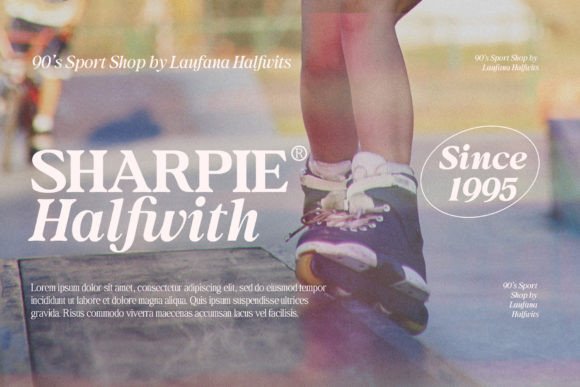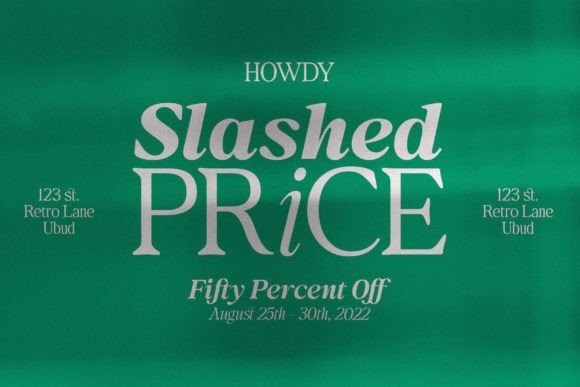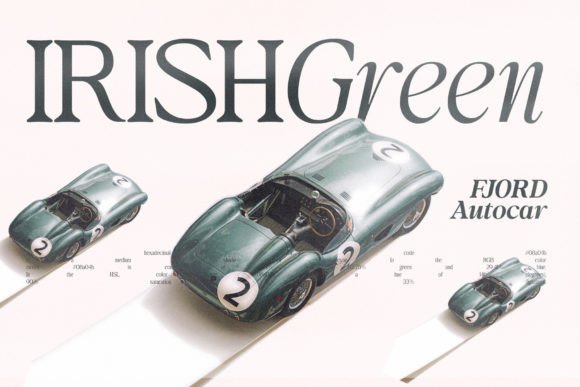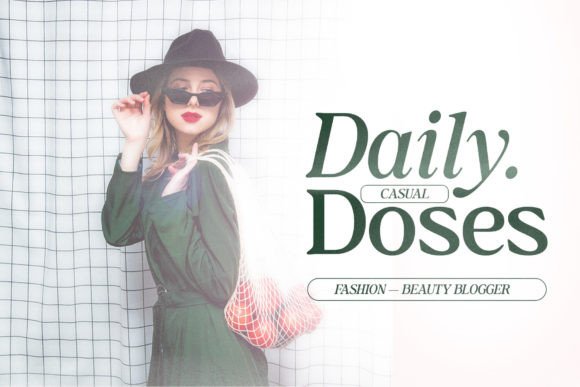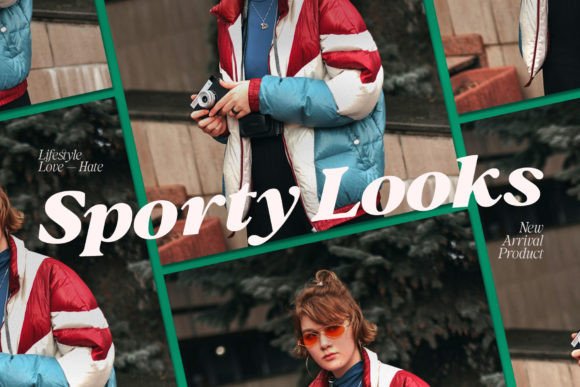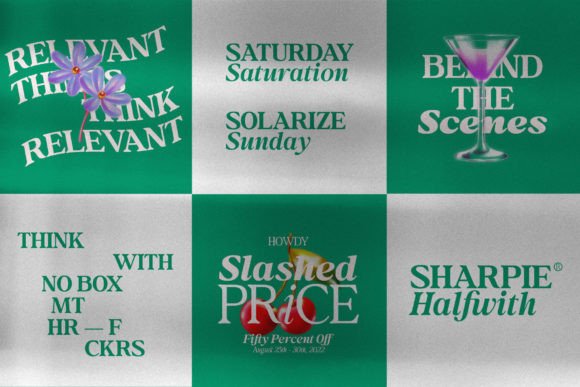
Unveiling the Timeless Charm of Behind the Nineties Font
In the realm of typography, certain fonts manage to capture the essence of an era, transporting us back to a time of nostalgia and elegance. Behind the Nineties font is one such typeface that has been making waves in the design community. Dubbed as a classy and elegant serif font, Behind the Nineties is not just a stylish addition to your typography arsenal but a tool to elevate each of your creations to new heights of sophistication.
The Essence of Behind the Nineties Font
Behind the Nineties is more than just a font; it’s a statement. Its classy and elegant serif design harks back to the refined typography of the past, yet its trendy and stylish elements ensure it remains relevant in today’s fast-paced digital landscape. This unique blend of vintage charm and modern flair makes it an indispensable asset for designers and crafters looking to infuse their projects with a touch of nostalgia and class.
Key Features of Behind the Nineties Font
- Classy and Elegant Serif Design: The font boasts a sophisticated serif design that lends an air of elegance to any project.
- Trendy and Stylish: Despite its vintage roots, Behind the Nineties remains trendy and stylish, perfect for designers looking for a modern twist on classic typography.
- Versatility: From branding and advertising to packaging and digital media, this font’s versatility knows no bounds.
- Easy to Read: The clear and readable design of Behind the Nineties ensures that your message is conveyed effectively, making it ideal for both headings and body text.
Who Can Benefit from Behind the Nineties Font?
Behind the Nineties font is a versatile tool that can benefit a wide range of professionals and enthusiasts. Graphic designers can use it to create stunning branding materials, while crafters can incorporate it into their DIY projects for a personalized touch. Additionally, marketers and advertisers will find this font invaluable for crafting compelling campaigns that stand out from the crowd.
Tips for Using Behind the Nineties Font Effectively
- Pair it with Simplicity: Let the elegance of Behind the Nineties be the focal point by pairing it with simple, clean design elements.
- Experiment with Sizes: Play around with different font sizes to create visual hierarchy and emphasize key messages.
- Consider Color: The classic look of Behind the Nineties pairs well with a variety of colors, but it’s especially striking against a neutral background.
- Don’t Overdo It: While it’s tempting to use Behind the Nineties for every element of your design, restraint is key. Use it sparingly to maximize impact.
Behind the Nineties font is a classy and elegant addition to any designer’s toolkit. Its unique blend of vintage charm and modern style ensures that your creations stand out in a crowded digital landscape. Whether you’re a seasoned professional or a DIY enthusiast, Behind the Nineties offers endless possibilities for adding a touch of sophistication and class to your projects. So, why wait? Dive into the world of elegant typography with Behind the Nineties and watch your designs transform into timeless pieces of art.